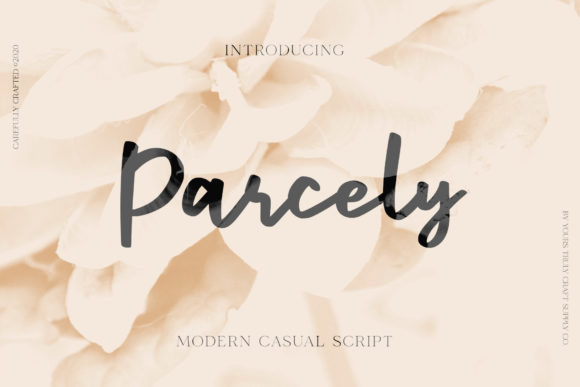
Unleash the Enchantment of Parcely Font: A Serene Symphony for Your Creative Endeavors
In the realm of digital artistry, where words dance and emotions ignite, there exists a font that captivates hearts with its grace and elegance. Allow us to introduce you to Parcely Font, a script font born from the fusion of artistry and innovation.
Parcely Font is an exquisite creation that dances across your screen like a ballerina, leaving a trail of awe and inspiration. Its strokes flow with the fluidity of a gentle stream, each letter whispering tales of elegance and charm. This font is the epitome of sophistication, effortlessly enhancing any project with its timeless beauty.
Immerse yourself in the world of Parcely Font and discover a symphony of creative possibilities. Its versatility knows no bounds, allowing you to weave magic into wedding invitations, thank-you cards, quotes that resonate with your soul, greeting cards that warm hearts, logos that leave an indelible mark, business cards that exude professionalism, and any other design that yearns for a handwritten touch.
With Parcely Font, your words will dance off the page, each letter a work of art in its own right. Its varying baseline adds a touch of playfulness, while its smooth lines and gorgeous glyphs create a visual masterpiece. And let us not forget the stunning alternates, ready to elevate your designs to new heights of creativity.
Parcely Font is more than just a font; it is an experience that will ignite your imagination and leave you breathless. It is a font that speaks to your heart, inviting you to explore the depths of your creativity and share your unique vision with the world.
So embrace the allure of Parcely Font, let your creative juices flow, and embark on a journey of artistic expression that will leave you spellbound. Allow this font to be your muse, your guiding light, as you create designs that captivate, inspire, and leave an everlasting impression.